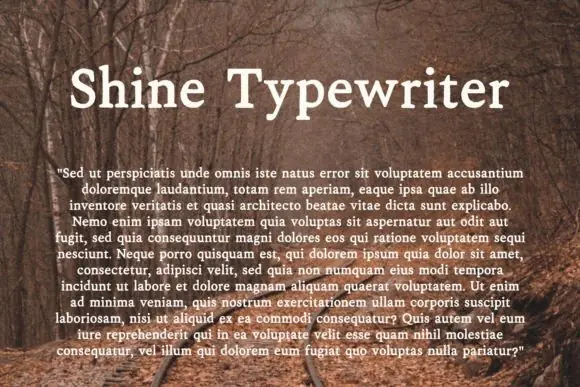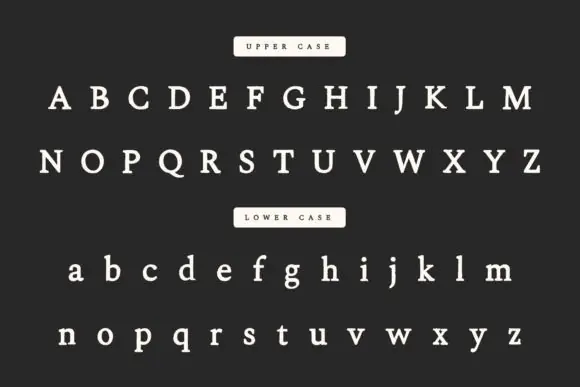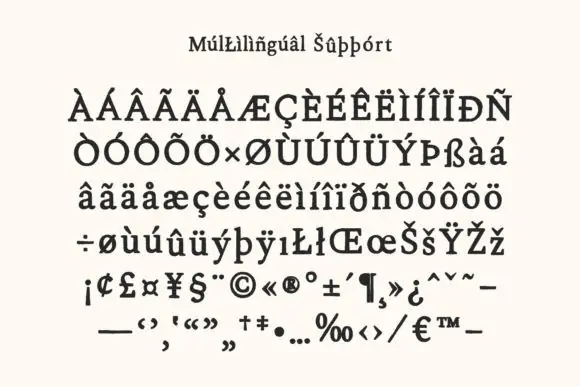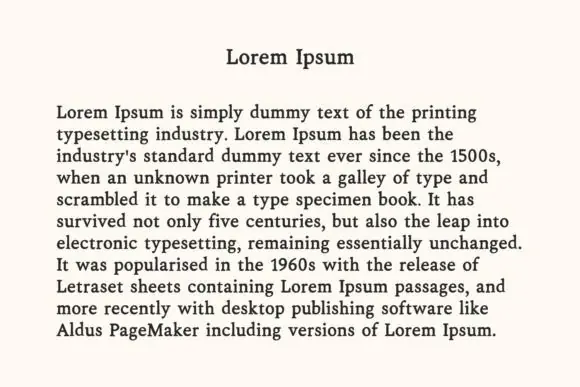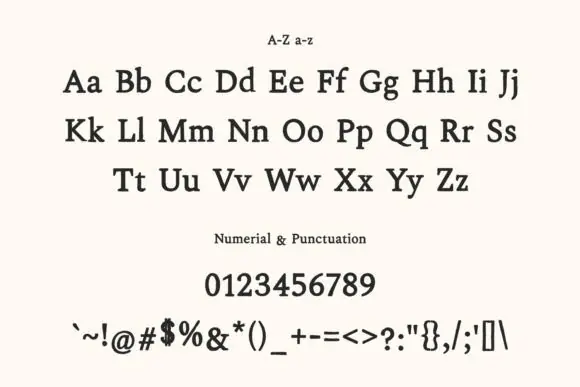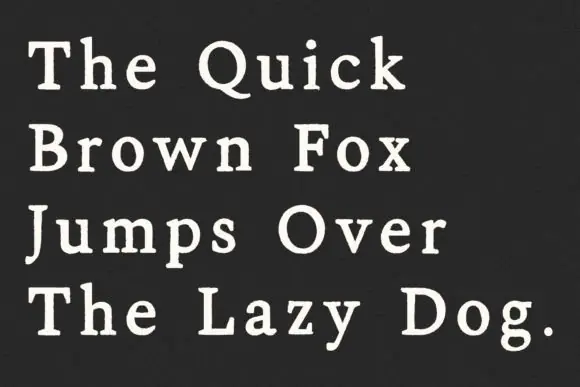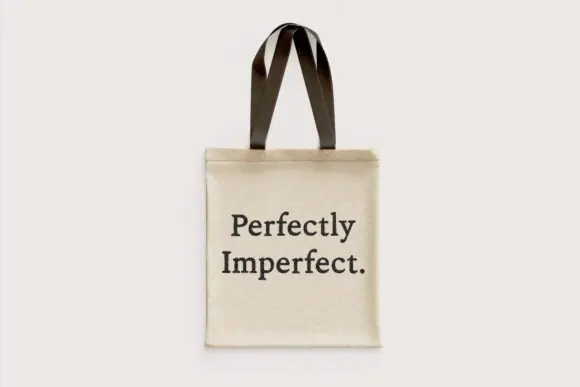
Shine Typewriter Font | Funky Handmade Retro Typewriter Typeface for Forensics Designs, Posters, Book Covers, Quotes, Branding & Creative Projects
Add a funky, creative, and retro-inspired typewriter look to your designs with Shine Typewriter Font, a handmade typewriter-style typeface created to bring character, mystery, and vintage charm into your creative projects. With its thematic typewritten appearance, this font is perfect for designs that need an old-school, investigative, forensic, or retro visual style.
Shine Typewriter Font is a great choice for designers, writers, content creators, crafters, and branding projects that need typography with personality. Its handmade typewriter feel works beautifully for posters, book covers, mystery-themed graphics, forensic-style layouts, quote designs, journal pages, editorial designs, labels, packaging, social media posts, stationery, invitations, and creative print materials.
Whether you are creating a crime-story book cover, a vintage document effect, a retro poster, a moody quote graphic, or a unique brand label, Shine Typewriter Font helps your text feel expressive, nostalgic, and visually memorable.
• Forensics-style designs
• Mystery and crime graphics
• Vintage document effects
• Retro posters
• Book covers
• Quote designs
• Journal pages
• Editorial layouts
• Branding projects
• Labels and packaging
• Stationery designs
• Invitations
• Scrapbooking
• Creative typography artwork